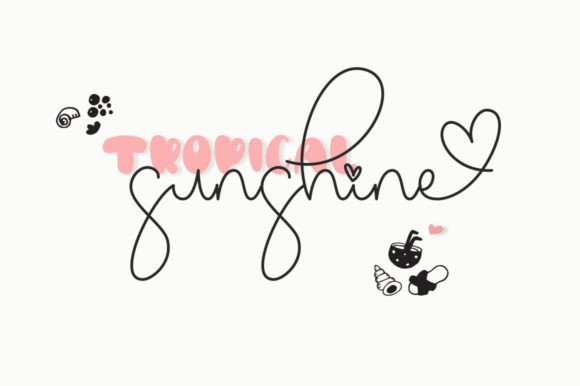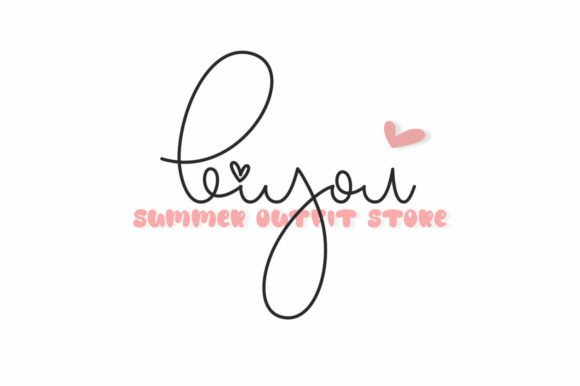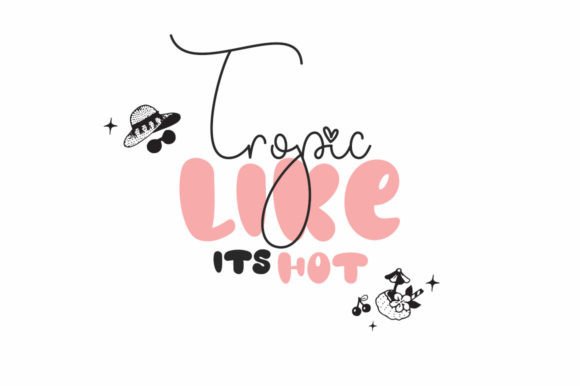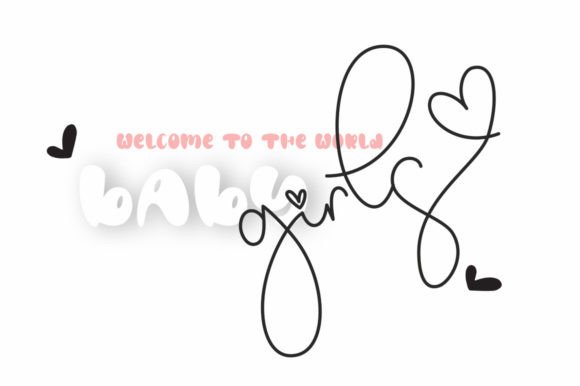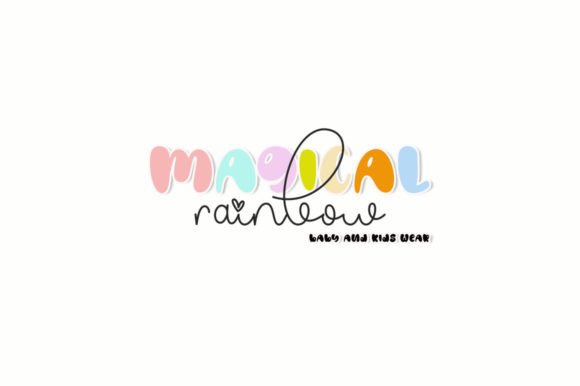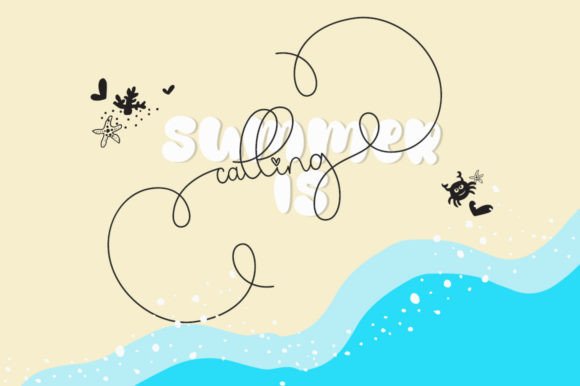
Girls Summer Font: Elevate Your Crafts with Chic and Cheery Typography
Are you a designer or crafter looking for the perfect font to add a touch of elegance and playfulness to your projects? Look no further than Girls Summer Font, a stunning duo of script and display fonts designed to complement each other perfectly. In this article, we’ll dive into the features and benefits of Girls Summer Font, and explore how it can elevate your crafts and designs.
A Perfect Pair: Script and Display Fonts
Girls Summer Font consists of two fonts: a beautiful script font and a bold display font. These fonts are carefully crafted to work together seamlessly, allowing you to mix and match them to create stunning visual effects. Whether you’re designing a logo, creating a social media graphic, or crafting a handmade card, Girls Summer Font is the perfect choice.
PUA Encoding: Easy Access to Glyphs and Ligatures
One of the standout features of Girls Summer Font is its PUA (Private Use Area) encoding. This means that you can access all glyphs and ligatures with ease, giving you maximum creative control over your designs. With PUA encoding, you can effortlessly insert special characters, swashes, and other flourishes to add a personal touch to your projects.
Girls Summer Font is incredibly versatile, making it perfect for a wide range of creative projects. Here are just a few ideas to get you started:
- Handmade cards and invitations: Add a touch of elegance and whimsy to your cards and invites with Girls Summer Font.
- Social media graphics: Create stunning social media graphics, quotes, and posters with this beautiful font duo.
- Logo design: Use Girls Summer Font to create a unique and memorable logo for your brand or business.
- Crafting projects: Add a personal touch to your crafting projects, such as scrapbooking, journaling, and sewing.
Why Choose Girls Summer Font?
So why choose Girls Summer Font over other fonts on the market? Here are just a few reasons:
- Unique and stylish: Girls Summer Font is a one-of-a-kind font duo that will set your designs apart from the crowd.
- Easy to use: With PUA encoding, you can easily access all glyphs and ligatures, making it simple to create stunning designs.
- Versatile: This font duo is perfect for a wide range of creative projects, from handmade cards to social media graphics.
- High-quality: Girls Summer Font is designed with high-quality craftsmanship in mind, ensuring that your designs look professional and polished.
Get Ready to Elevate Your Crafts with Girls Summer Font
In conclusion, Girls Summer Font is a must-have for designers and crafters looking to add a touch of elegance and playfulness to their projects. With its unique and stylish design, ease of use, and versatility, this font duo is perfect for a wide range of creative projects. So go ahead, get creative, and make your designs shine with Girls Summer Font!